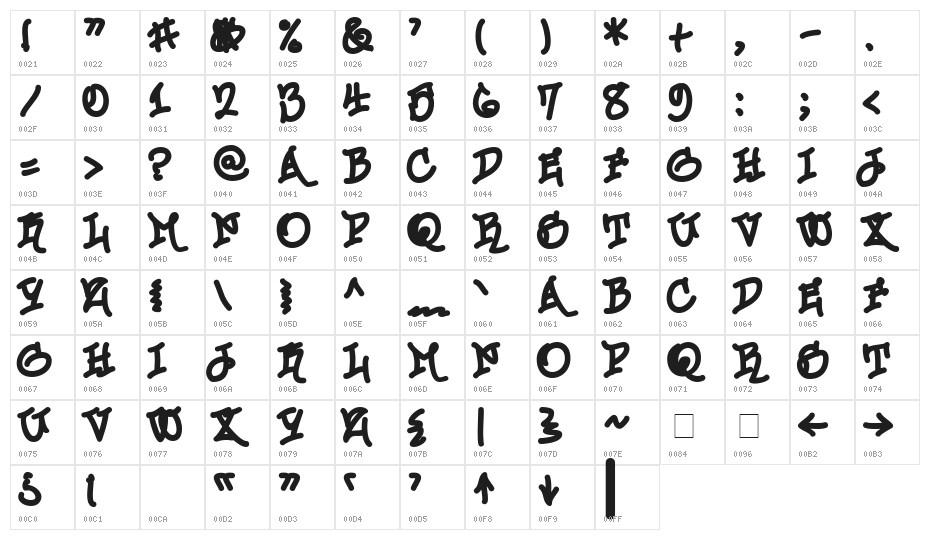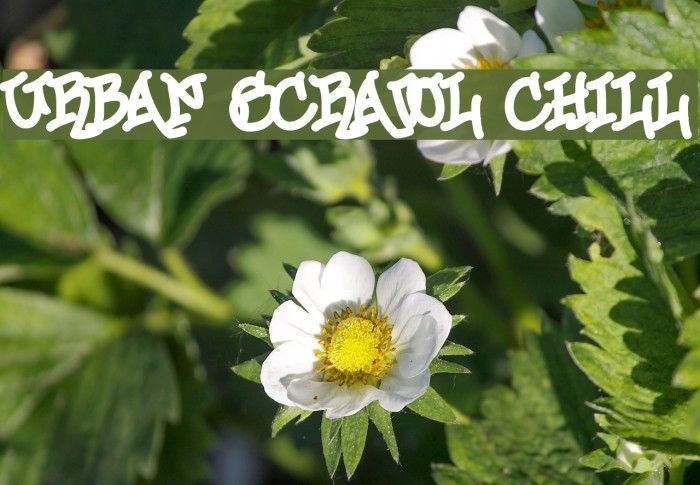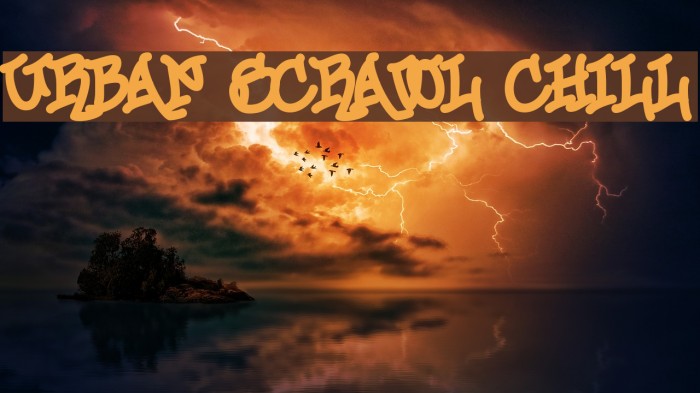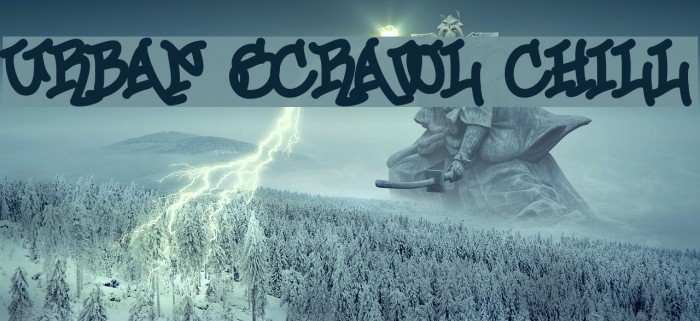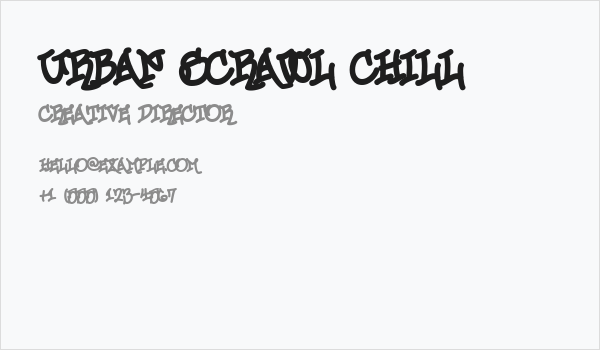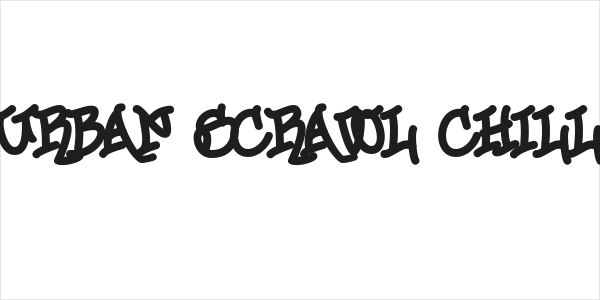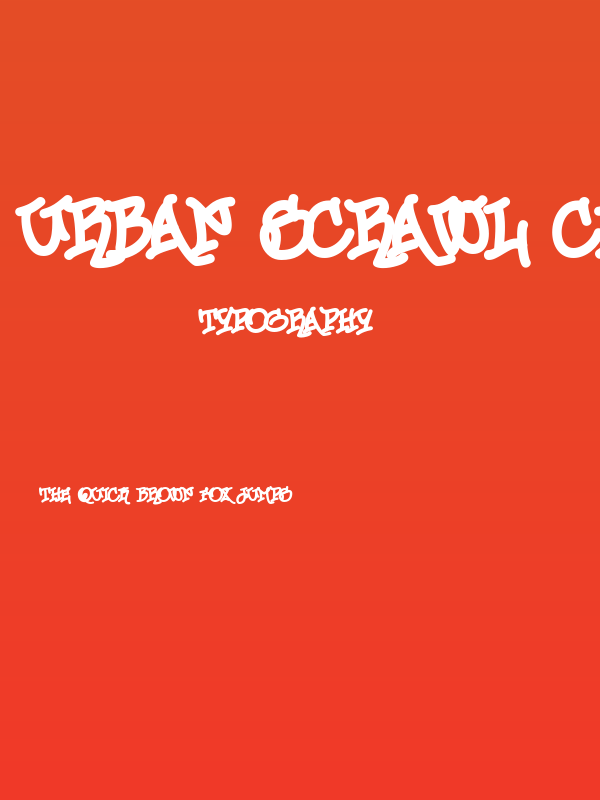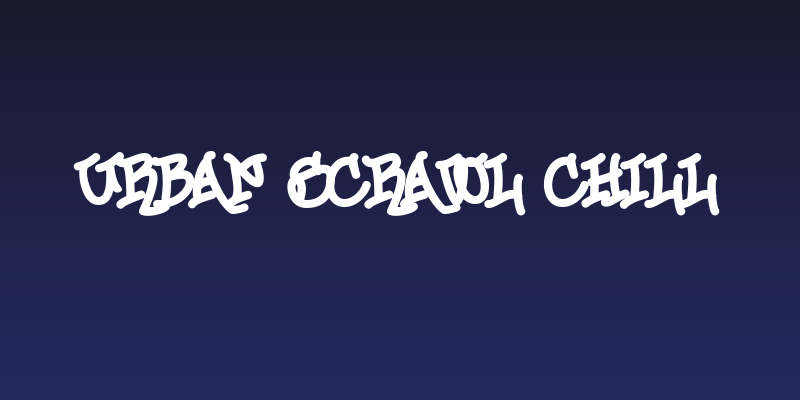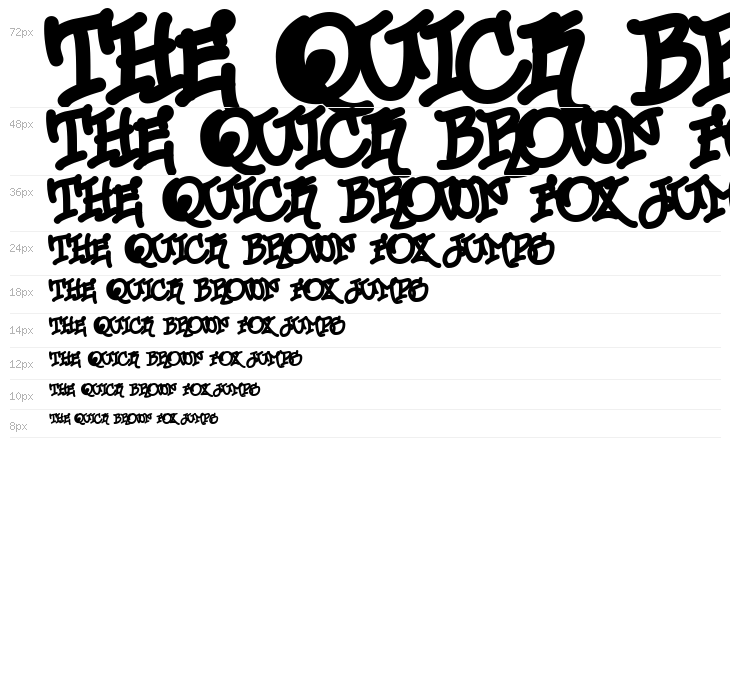
Urban Scrawl Chill Font
Urban Scrawl Chill Description
This font exudes a bold, urban graffiti style, characterized by its thick, rounded strokes and dynamic, flowing lines. The letters are highly stylized, with a playful and rebellious flair, reminiscent of street art. Each character is distinct, yet they all share a cohesive aesthetic that suggests movement and energy. The uppercase and lowercase letters maintain a consistent style, with exaggerated curves and loops that give the font a lively and informal appearance. The numbers and special characters are equally expressive, adding to the overall boldness and creativity of the design.
| Overall Style | Urban, Graffiti, Playful |
| Use Case | Logos, Posters, Album Covers |
| Proposed Projects | Ideal for street art-inspired designs, music album covers, urban-themed posters, and edgy branding projects. |